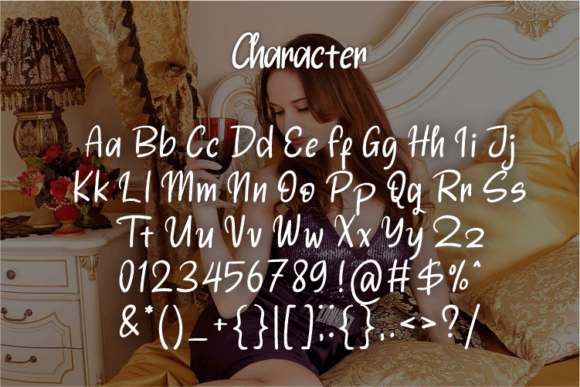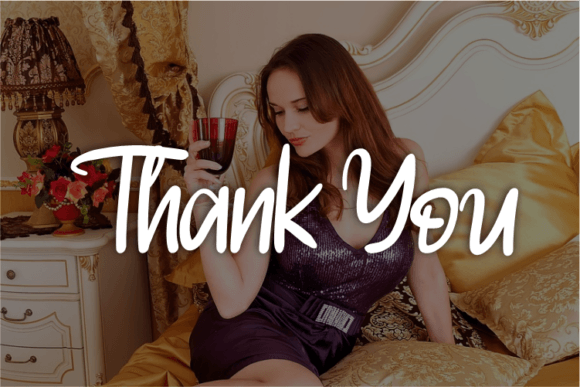
Discover the Elegance of Asyik Font: A Modern Script Typeface
In the world of typography, fonts play a crucial role in conveying the tone and personality of a brand, design, or artwork. For designers and crafters looking for a typeface that exudes elegance, luxury, and modernity, Asyik Font is an excellent choice. This script typeface boasts a simple yet sophisticated style that can elevate various design projects, from logos and titles to magazines and quotes.
The Simplicity and Modernity of Asyik Font
Asyik Font is characterized by its clean and minimalist design. The simple style of this typeface makes it versatile and easy to pair with other fonts, ensuring that your design looks cohesive and visually appealing. The modern look of Asyik Font is perfect for designers who want to create a contemporary and fresh feel in their work. Whether you’re designing a logo, a book or movie title, or a fashion brand’s identity, Asyik Font provides a sleek and sophisticated aesthetic.
Elegant and Luxurious Design Projects
Asyik Font is ideal for creating elegant and luxurious designs. Its script style adds a touch of sophistication and refinement, making it perfect for:
- Logos: Create a lasting impression with an elegant logo that features Asyik Font. This typeface is suitable for luxury brands, high-end products, and services that require a sophisticated image.
- Book and Movie Titles: Add a touch of glamour to your book or movie titles with Asyik Font. This typeface is perfect for designs that require a classic yet modern feel.
- Fashion Brands: Elevate your fashion brand’s identity with Asyik Font. This typeface is suitable for clothing brands, accessories, and beauty products that require a luxurious and modern look.
- Magazines: Use Asyik Font to create eye-catching headlines and titles for your magazine. This typeface is perfect for publications that focus on fashion, lifestyle, and luxury.
Versatility of Asyik Font
Asyik Font is not limited to the aforementioned design projects. Its versatility makes it suitable for various applications, including:
- Clothing: Use Asyik Font to create stylish and modern clothing designs, such as t-shirts, hoodies, and dresses.
- Fonts: Experiment with Asyik Font to create unique and creative typography designs, such as quotes, posters, and flyers.
- Quotes: Add a touch of elegance to your quotes with Asyik Font. This typeface is perfect for designs that require a sophisticated and inspirational feel.
Why Choose Asyik Font?
Asyik Font offers several benefits that make it an excellent choice for designers and crafters:
- Elegance: Asyik Font exudes elegance and sophistication, making it perfect for designs that require a luxurious feel.
- Modernity: This typeface boasts a modern look that is perfect for contemporary designs.
- Versatility: Asyik Font is suitable for various design projects, from logos and titles to magazines and quotes.
- Easy to Pair: The simple style of Asyik Font makes it easy to pair with other fonts, ensuring a cohesive design.
In conclusion, Asyik Font is an excellent choice for designers and crafters looking for a modern script typeface that exudes elegance and sophistication. Its simplicity, modernity, and versatility make it perfect for various design projects, from logos and titles to magazines and quotes. With Asyik Font, you can create stunning designs that leave a lasting impression.